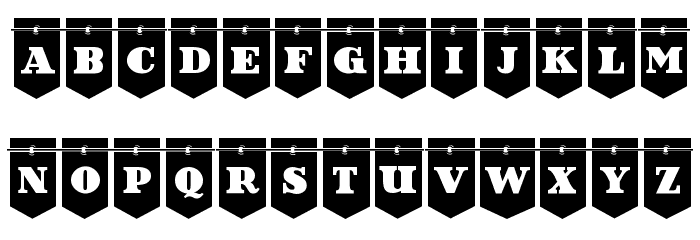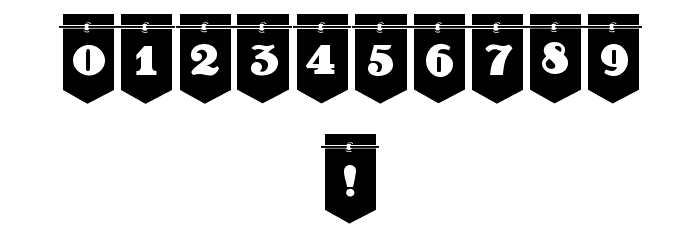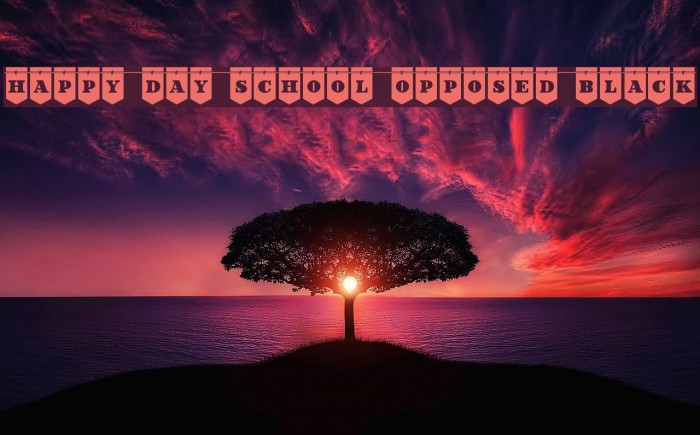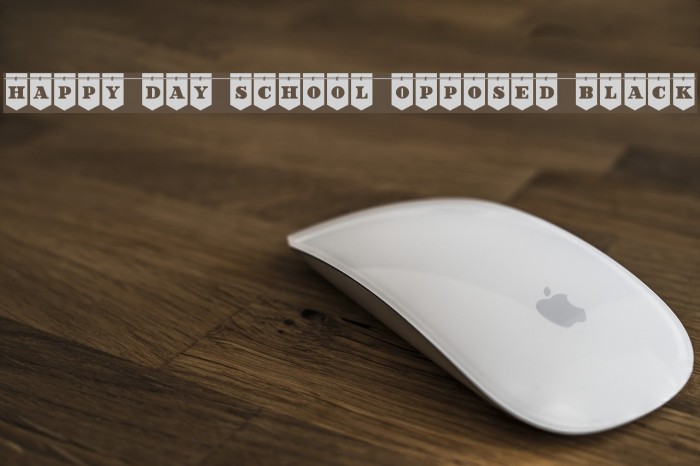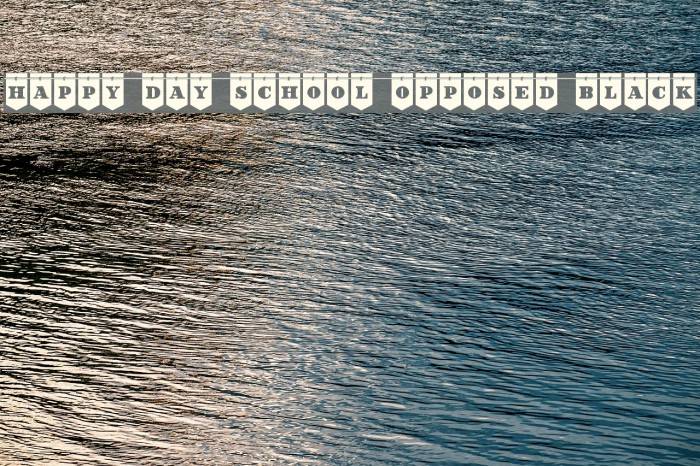
Happy Day School Opposed Black Font
This font features bold, uppercase letters with a playful and decorative style. Each character is enclosed in a banner-like shape, adding a unique and festive touch. The letters are evenly spaced and have a strong presence, making them ideal for attention-grabbing designs. The numbers and special characters follow the same design, ensuring consistency across all elements. The font's boldness and decorative elements make it suitable for projects that require a fun and lively aesthetic.
A bold, decorative font with characters enclosed in banner shapes, perfect for festive designs.
- Proposed Projects: Ideal for party invitations, banners, posters, and any project that requires a playful and celebratory feel.